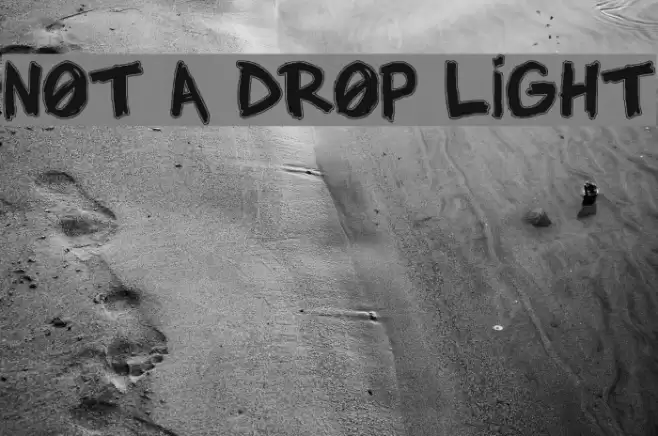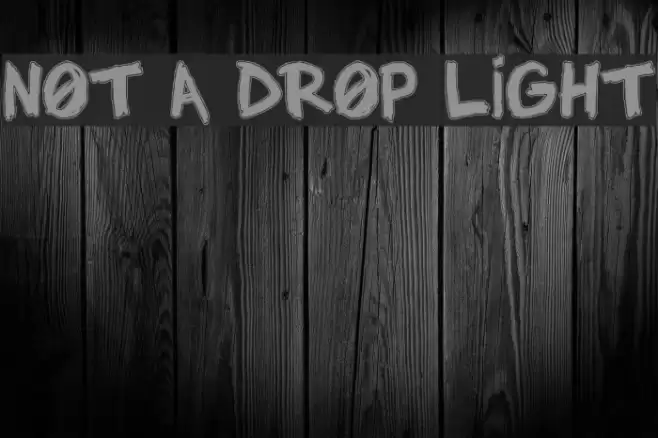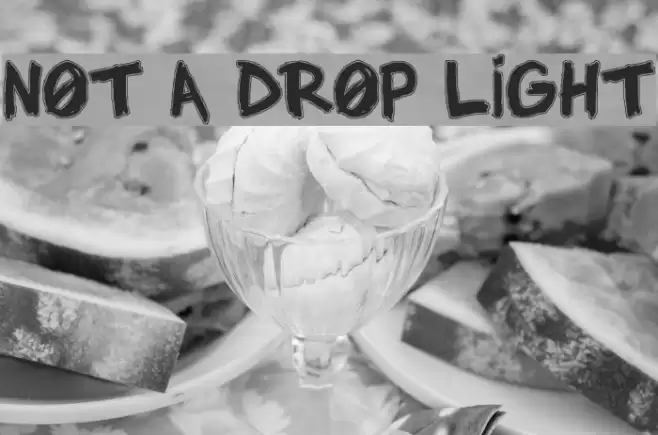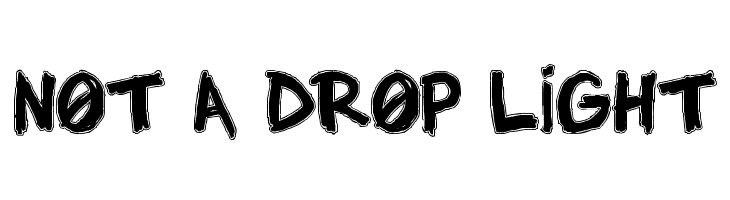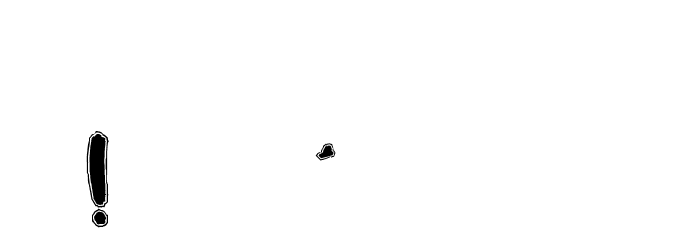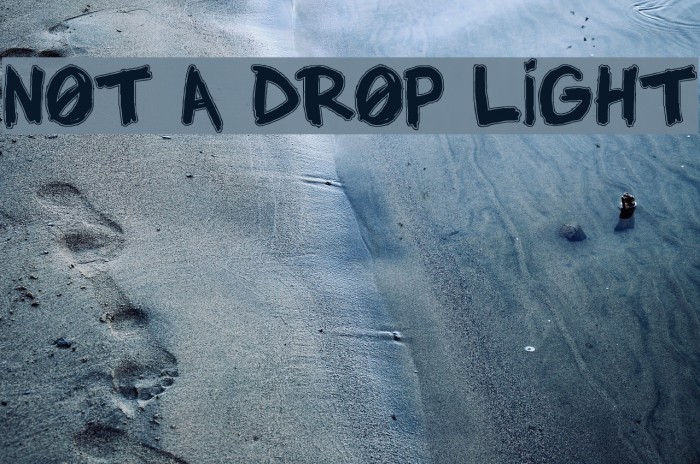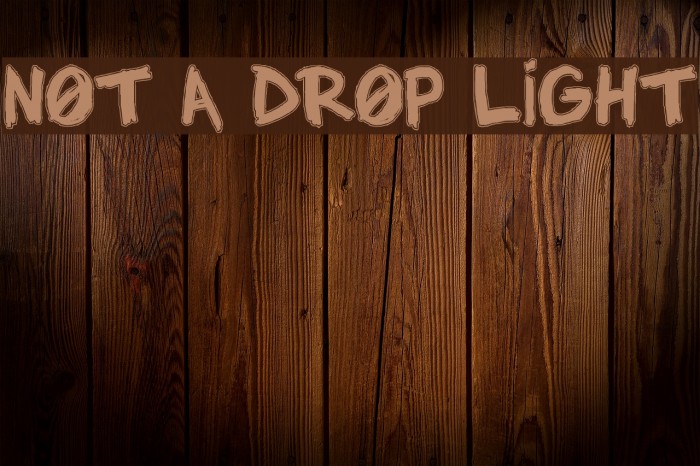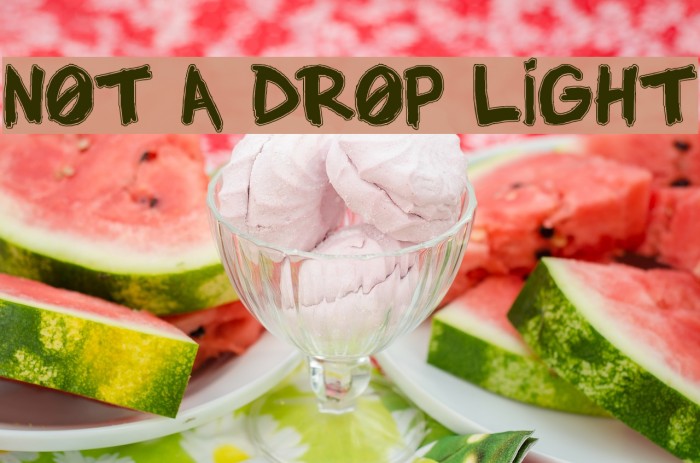
NOT A DROP LIGHT Font
NOT A DROP LIGHT Description
This font features a bold and playful style with a hand-drawn appearance. The letters are characterized by thick strokes and a slightly irregular shape, giving them a dynamic and energetic feel. The uppercase letters are prominent and stand out with their bold presence, while the special characters add a quirky touch. The font's overall look is casual and artistic, making it suitable for projects that require a fun and informal vibe. The unique design of each character ensures that the text is eye-catching and memorable.
A bold, playful, hand-drawn font with an energetic and casual style from Uncategorized fonts.
- Proposed Projects: Ideal for comic books, children's books, playful branding, posters, and creative social media graphics.
- Overall Style: Playful, Casual, Artistic